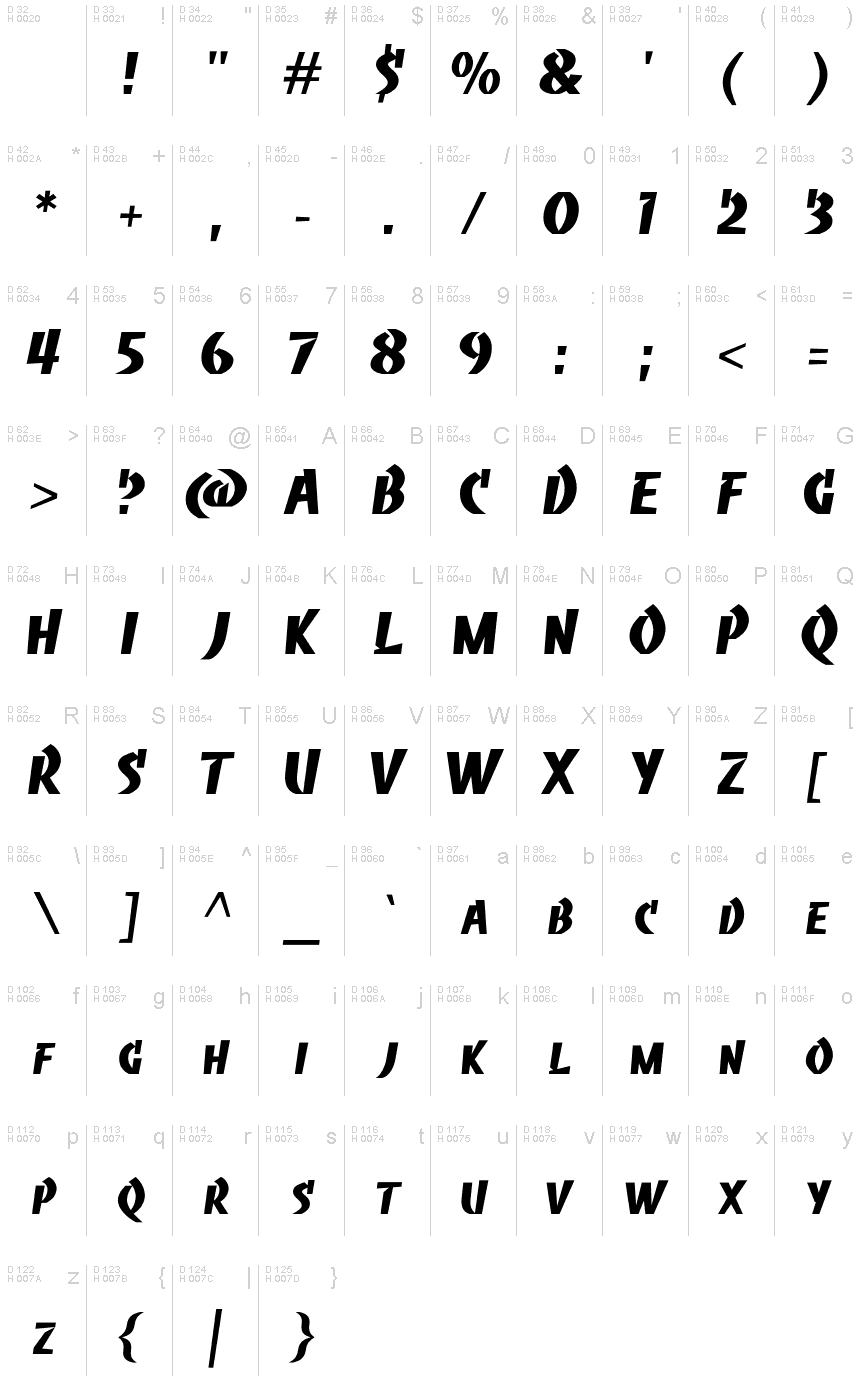
Treasure-Regular
Treasure, a beautiful display font designed by Faqih Fawaji, is perfect for your retro branding needs. With its bold weight and vintage style, it's sure to make a statement on any project. Use Treasure for your next logo design or packaging project to give it that classic feel. It's also great for creating eye-catching posters or social media graphics. The unique letterforms of this display font will help your design stand out from the crowd. Let Treasure be the gem of your next creative venture!